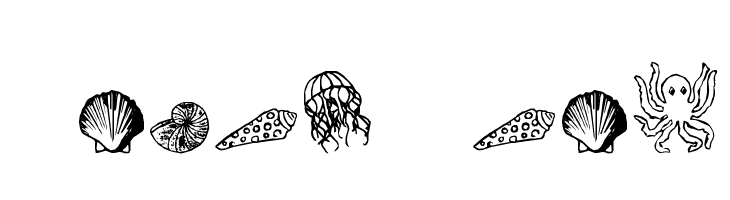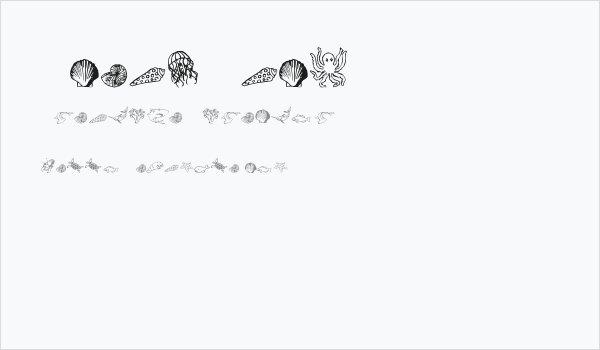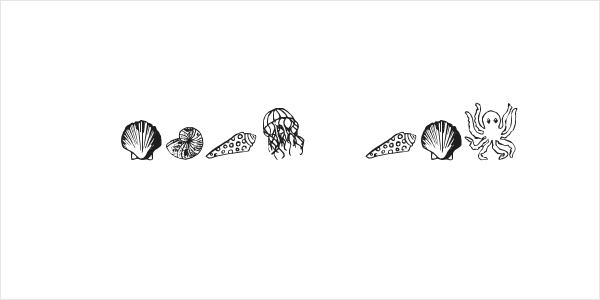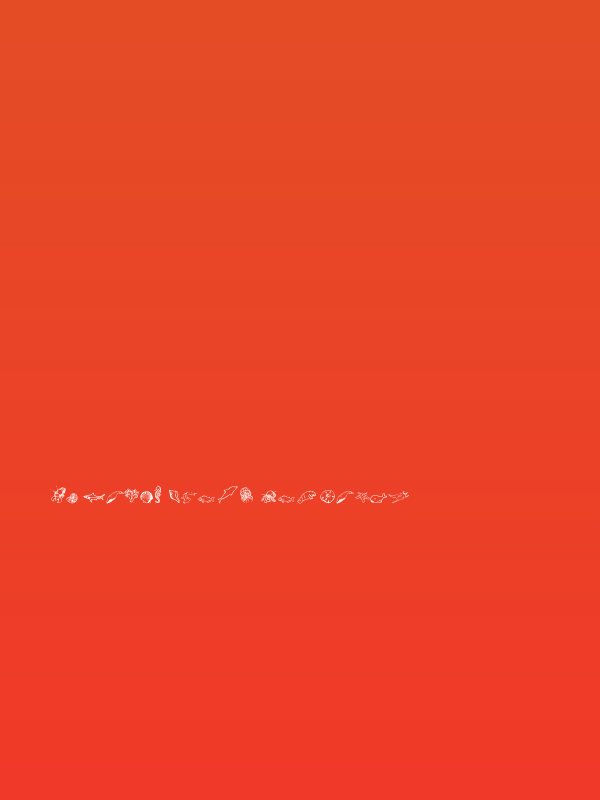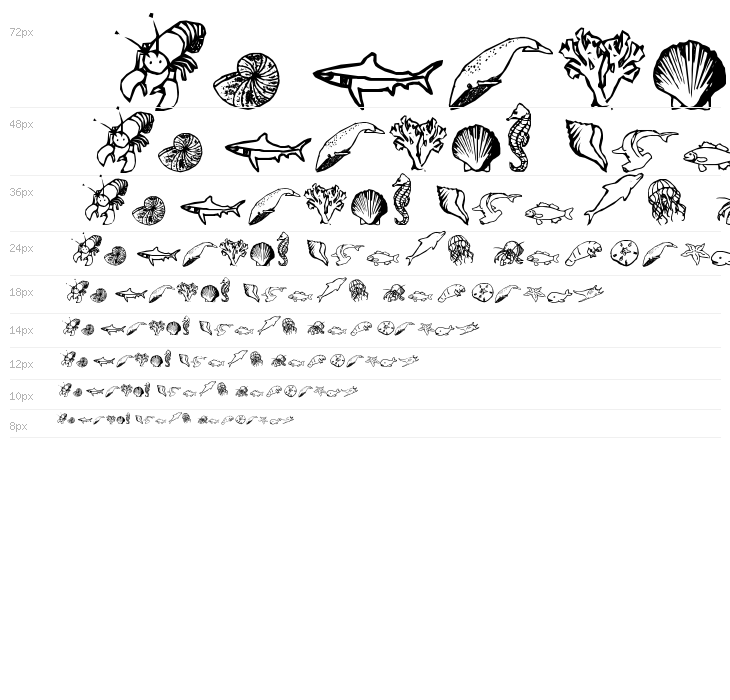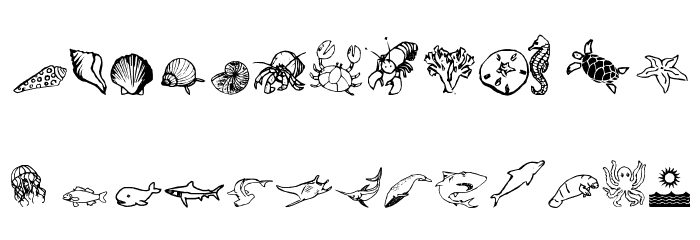
Ocean_Iacy Font
Ocean_Iacy Description
A decorative collection of hand-drawn ocean-themed icons, including shells, sea creatures, fish, and marine plants, rendered in a sketchy, outlined style with moderate detail and playful character.
| Overall Style | Decorative, Playful, Hand-drawn |
| Use Case | Illustrative elements, Themed graphics, Decorative accents |
| Proposed Projects | ChildrenΓ’β¬β’s books, educational materials, beach event posters, aquarium signage, themed invitations, scrapbooking. |